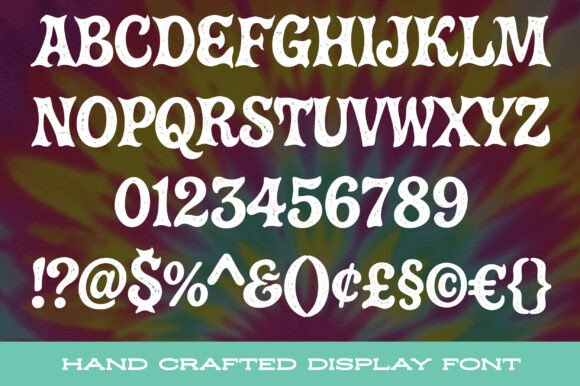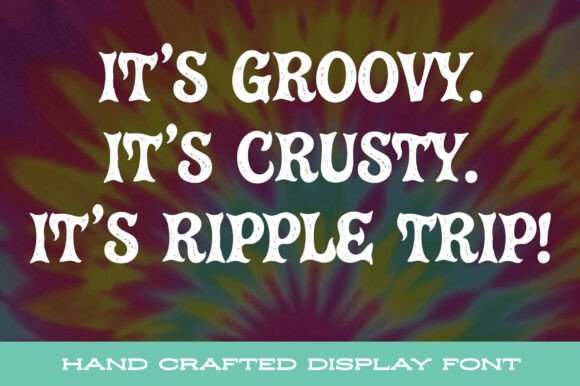
Introduction to Rippletrip Font Font
Fonts play a crucial role in design, and the Rippletrip Font font is a typeface that brings both character and versatility to any project. Whether you’re working on a branding project, a website, or a print design, the Rippletrip Font font offers a unique style that can elevate your work.
RippleTrip typeface is a bold, wavy, hand-crafted display font that sways with groovy, free-flowing energy.
Each character ripples as if caught in a warm summer breeze, while its gritty, weathered texture adds a vintage, well-loved feel The letters bend and dance with a playful, psychedelic flair, perfect for posters, album covers, or branding that wants to channel 60s and 70s counterculture vibes.
Key Features of Rippletrip Font Font
Why Choose Rippletrip Font Font?
The Rippletrip Font font is more than just a typeface – it’s a design tool that helps you communicate your message with style and clarity. Its unique character set and versatile design make it suitable for a wide range of applications, from elegant invitations to bold headlines.
With its carefully crafted letterforms and balanced proportions, the Rippletrip Font font ensures readability and visual appeal across all mediums.
What makes Rippletrip Font font special?
The Rippletrip Font font stands out with its unique design, exceptional readability, and versatility across various design applications.